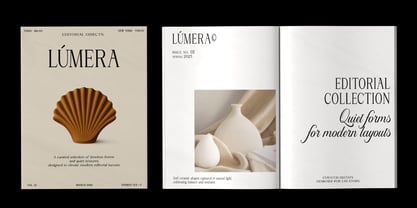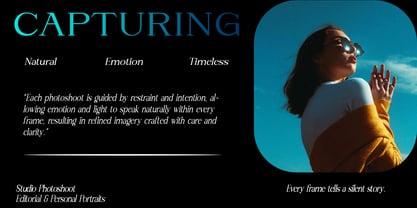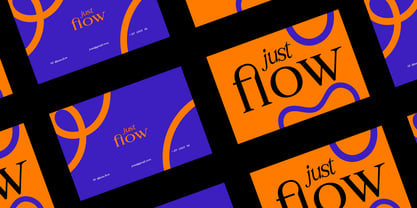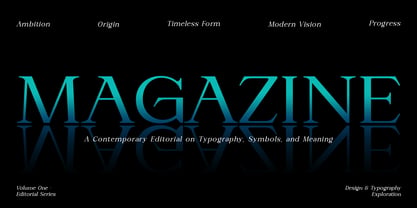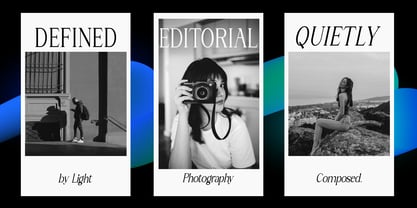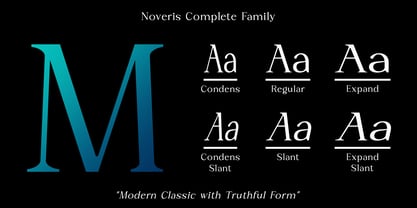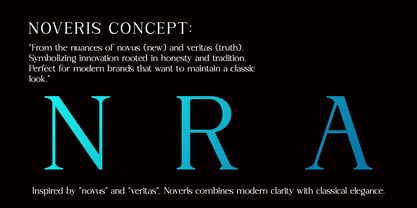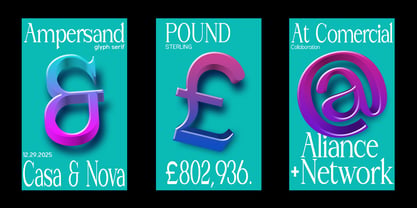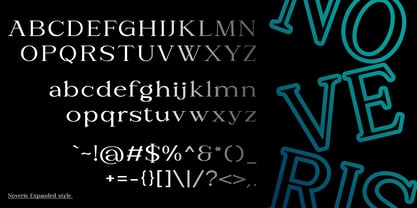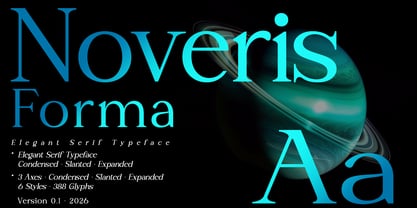
Noveris Forma
The Noveris Forma Font Family was designed by Muhammad Rayyan and published by Slex Studio. Noveris Forma contains 50 styles and family package options. More about this family
Noveris is a serif font family that blends classic elegance with a modern design approach. Inspired by traditional editorial typography, it features strong structure, balanced proportions, and refined yet confident serif details. Its character conveys trust, calmness, and intellectual depth, making it an ideal choice for premium branding, editorial headlines, logos, and visual identities that require a sophisticated and authentic presence. Designed for versatility across both print and digital media, Noveris remains contemporary while preserving the timeless beauty of classic serif typography.